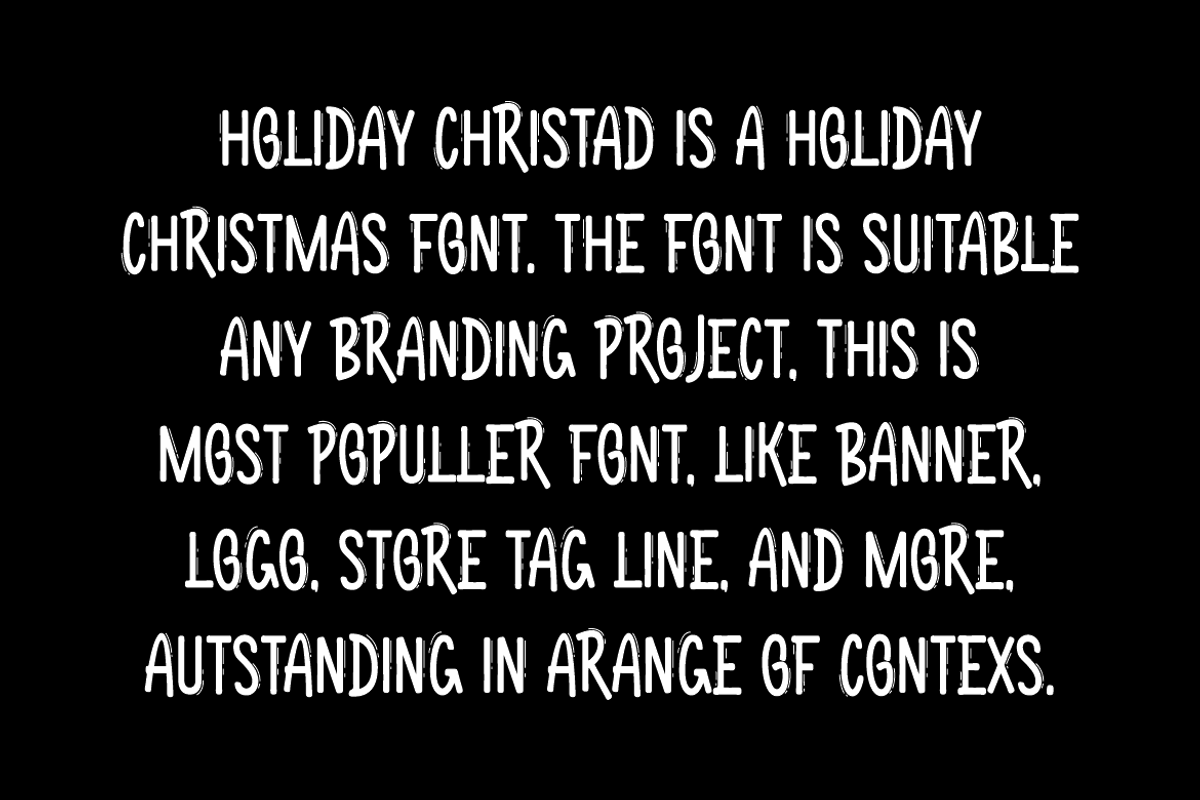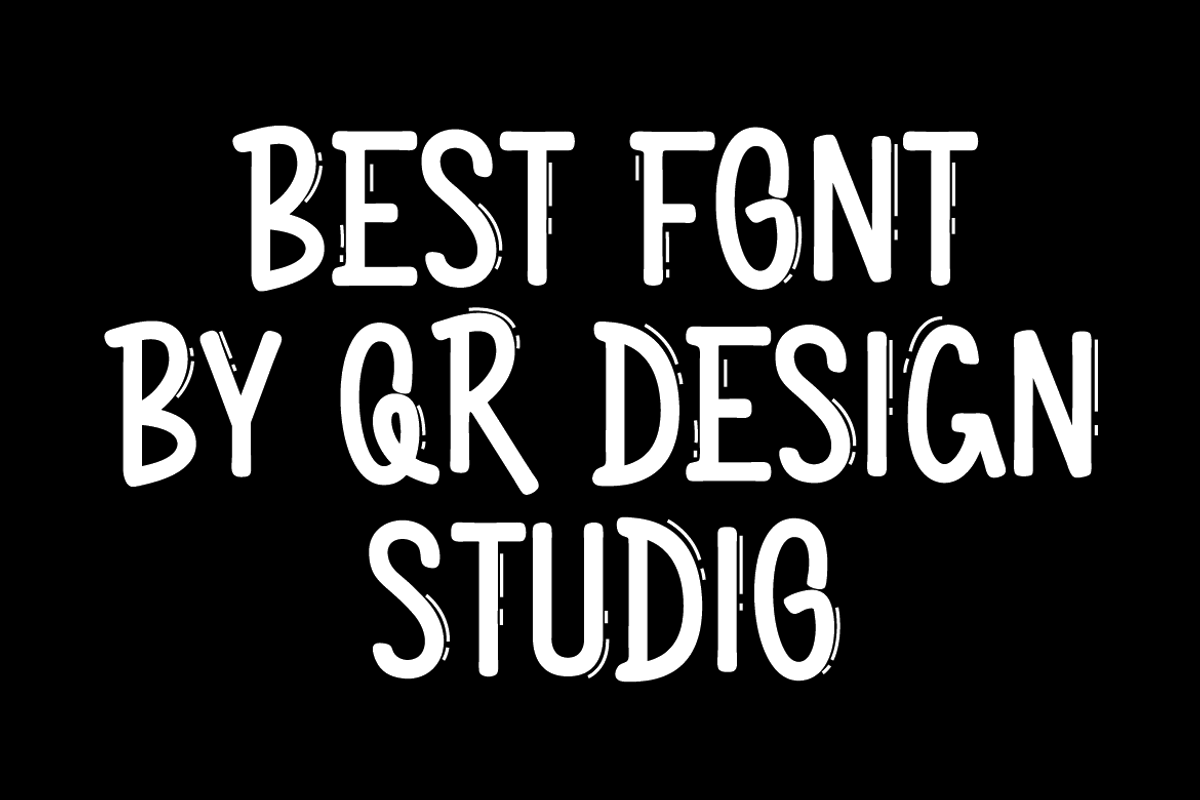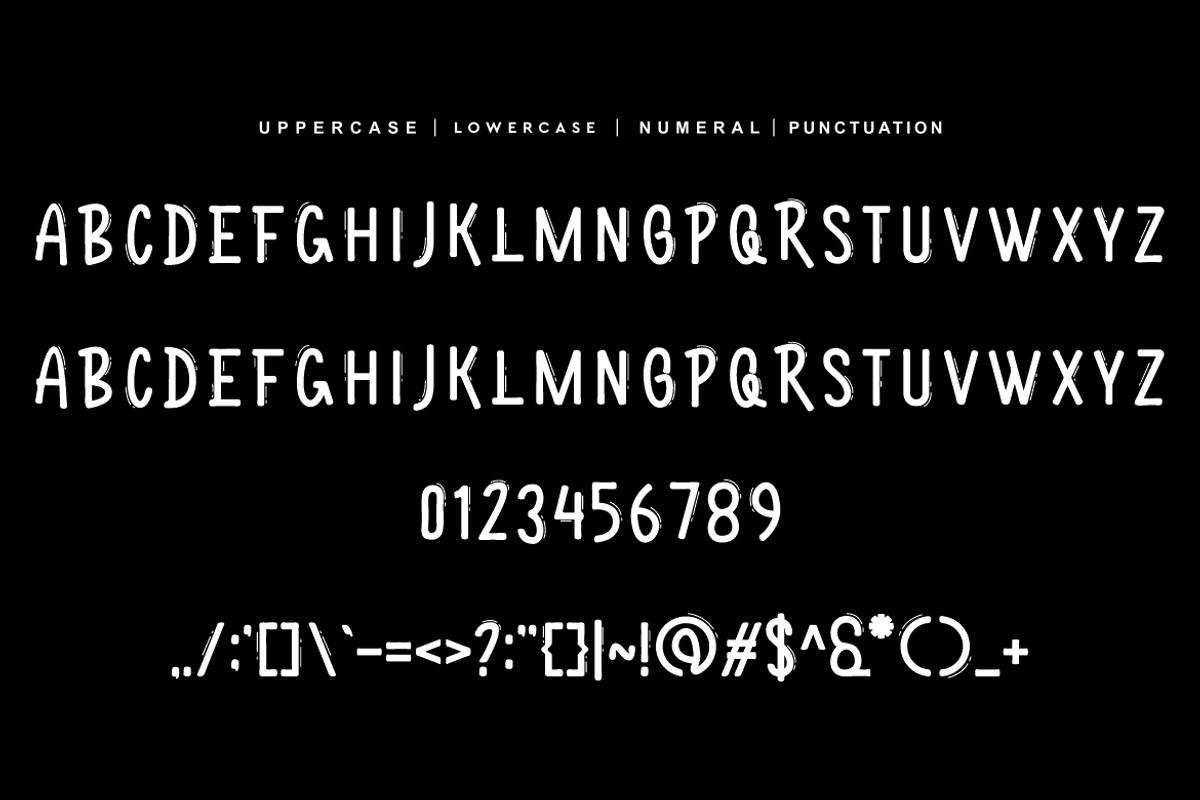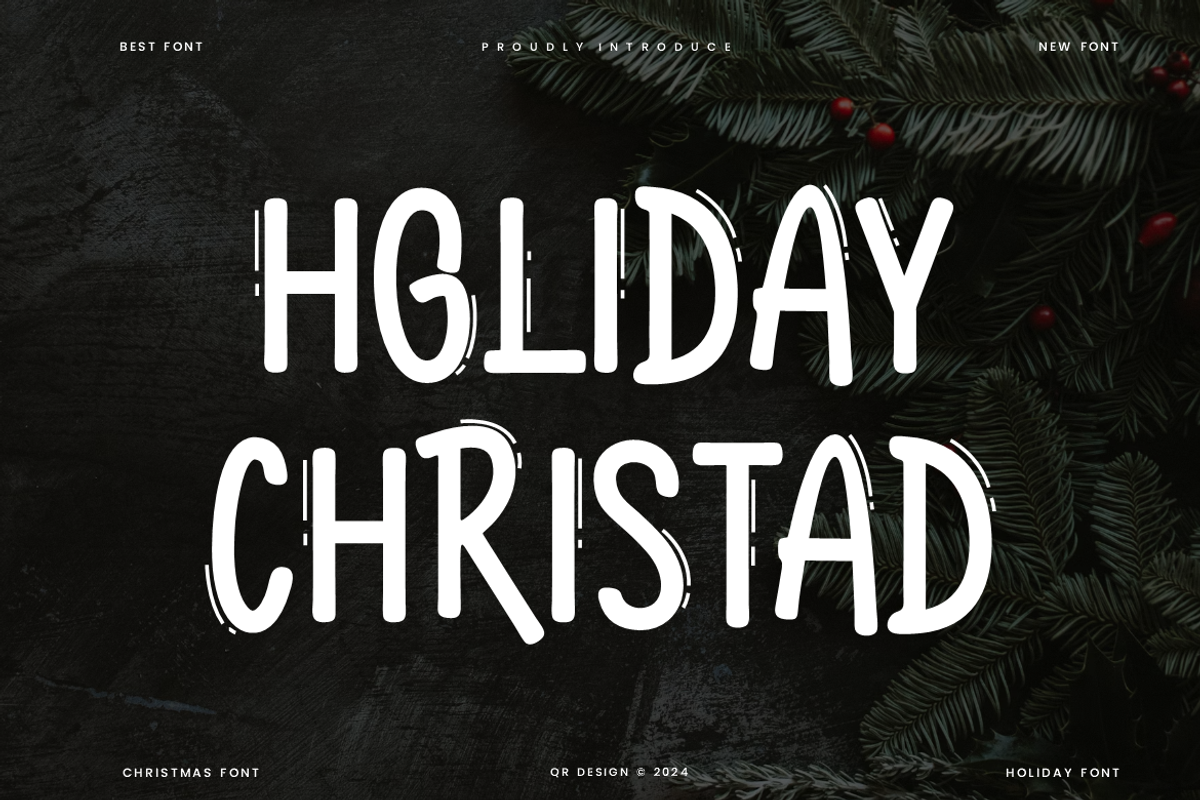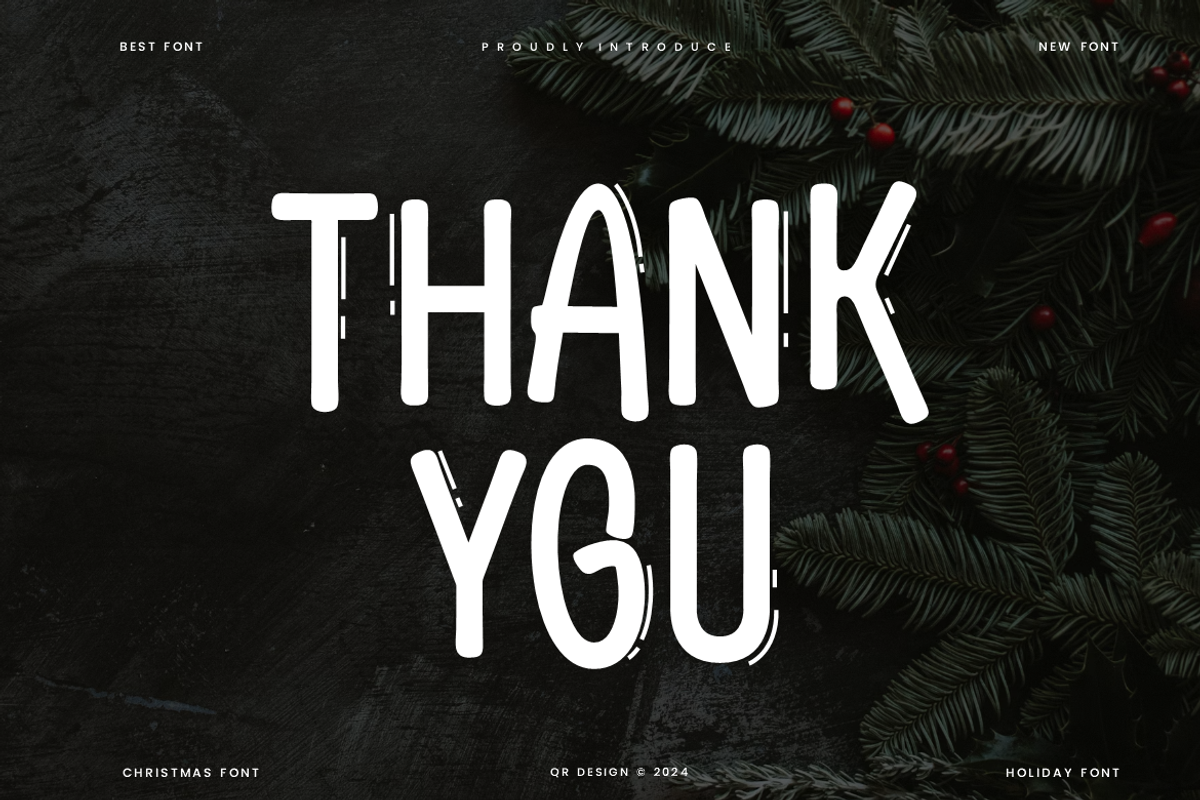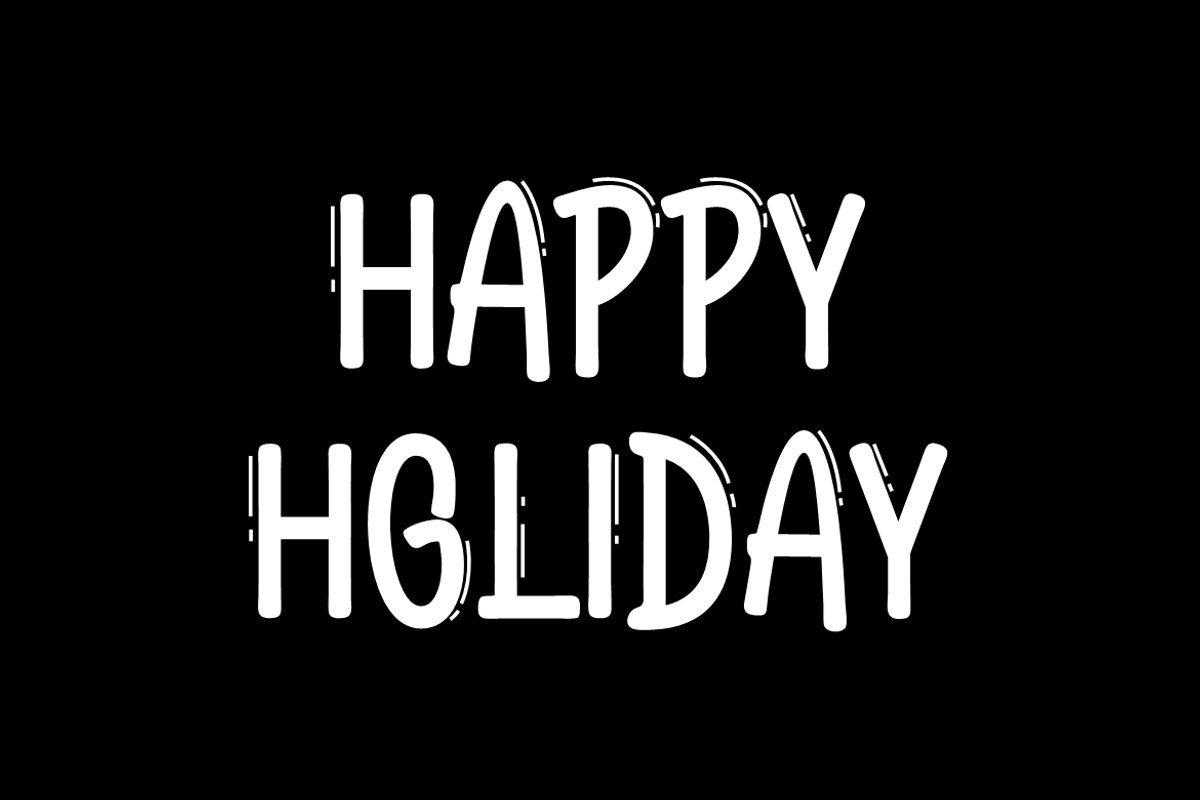
Holiday Christad - Christmas Font
Holiday Christad - Christmas Display Font is a bold and authentic display font. The font is suitable for any branding project like poster, logo, sport, and many more. Outstanding in a wide range of contexts.